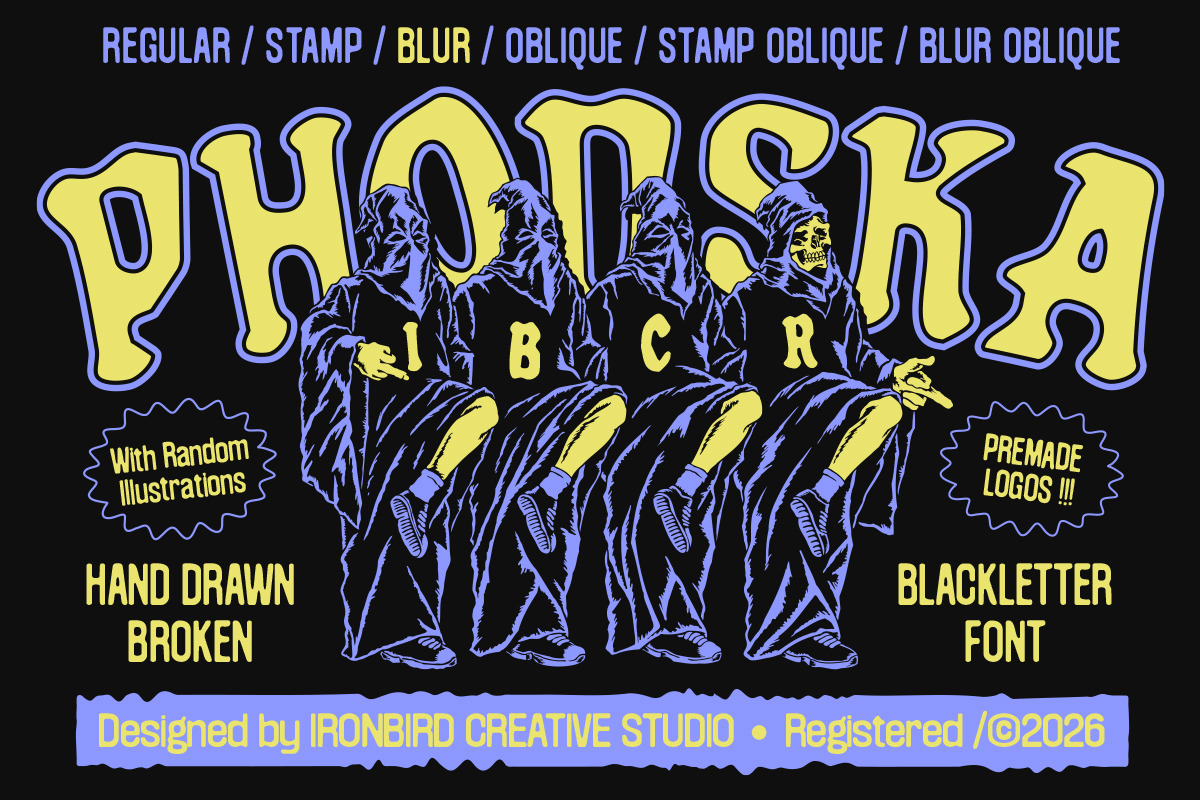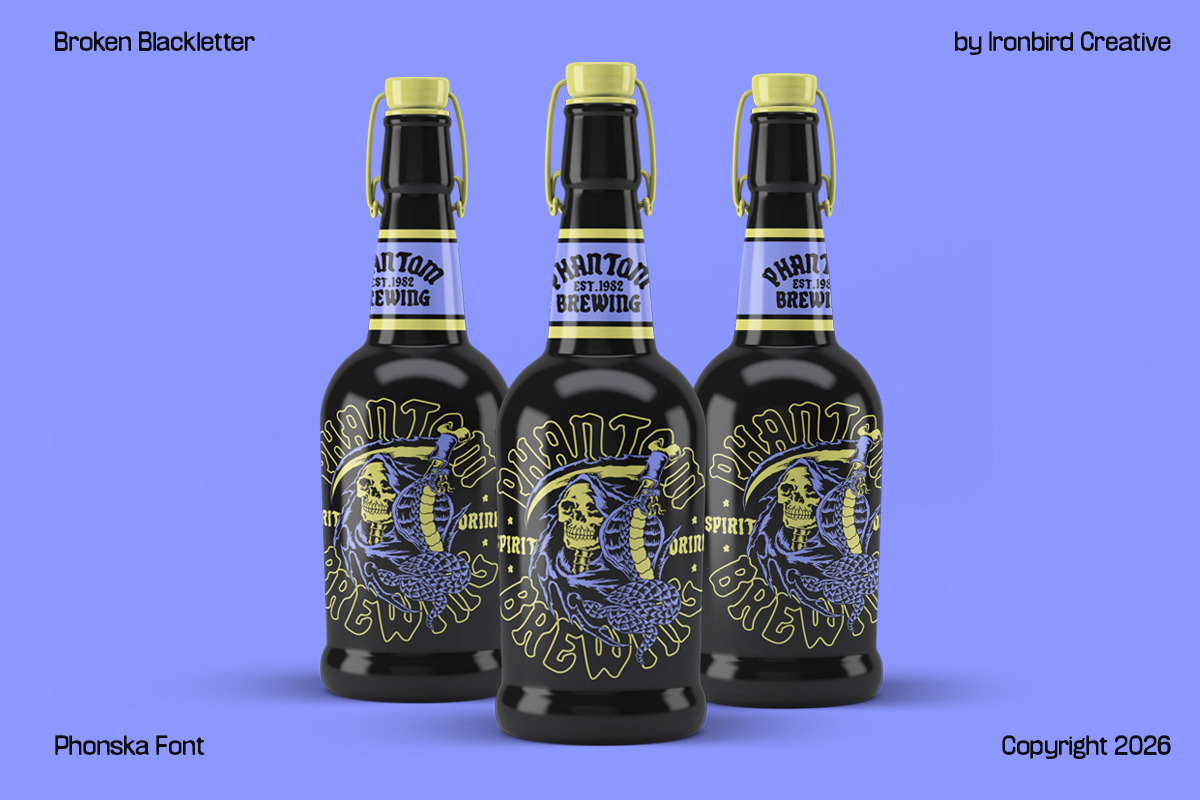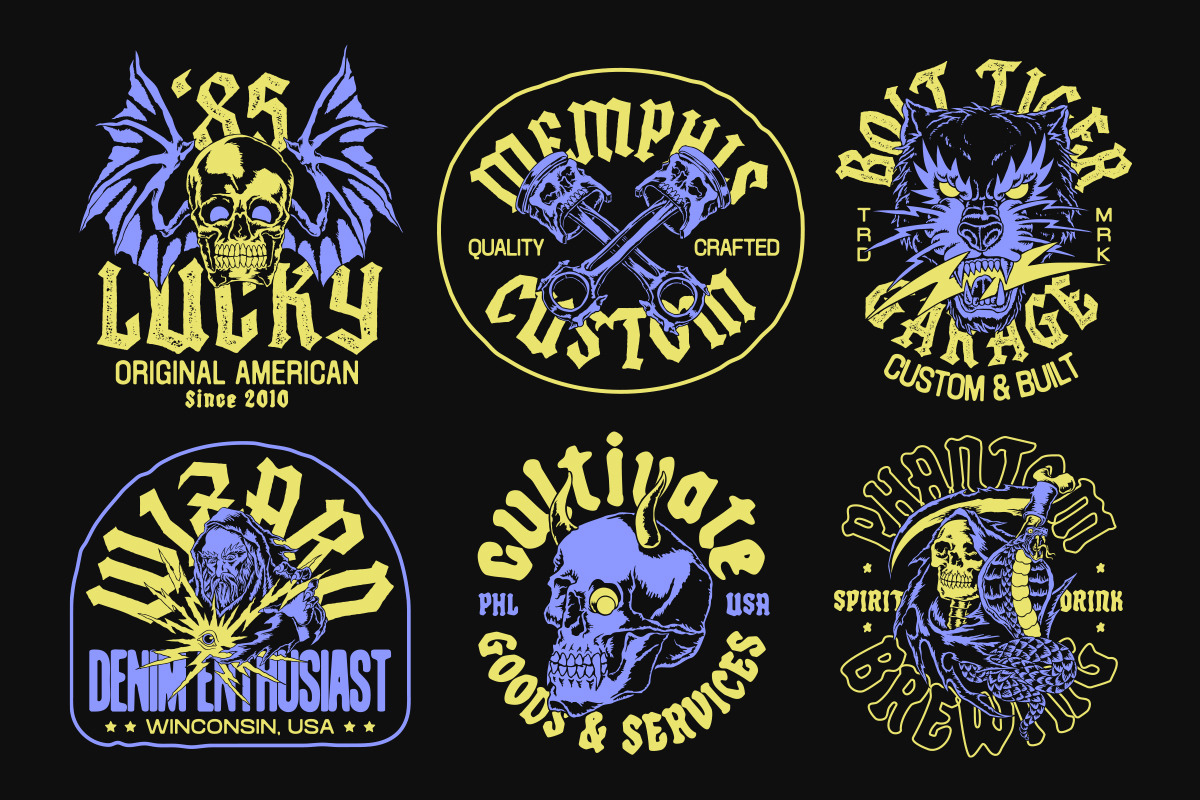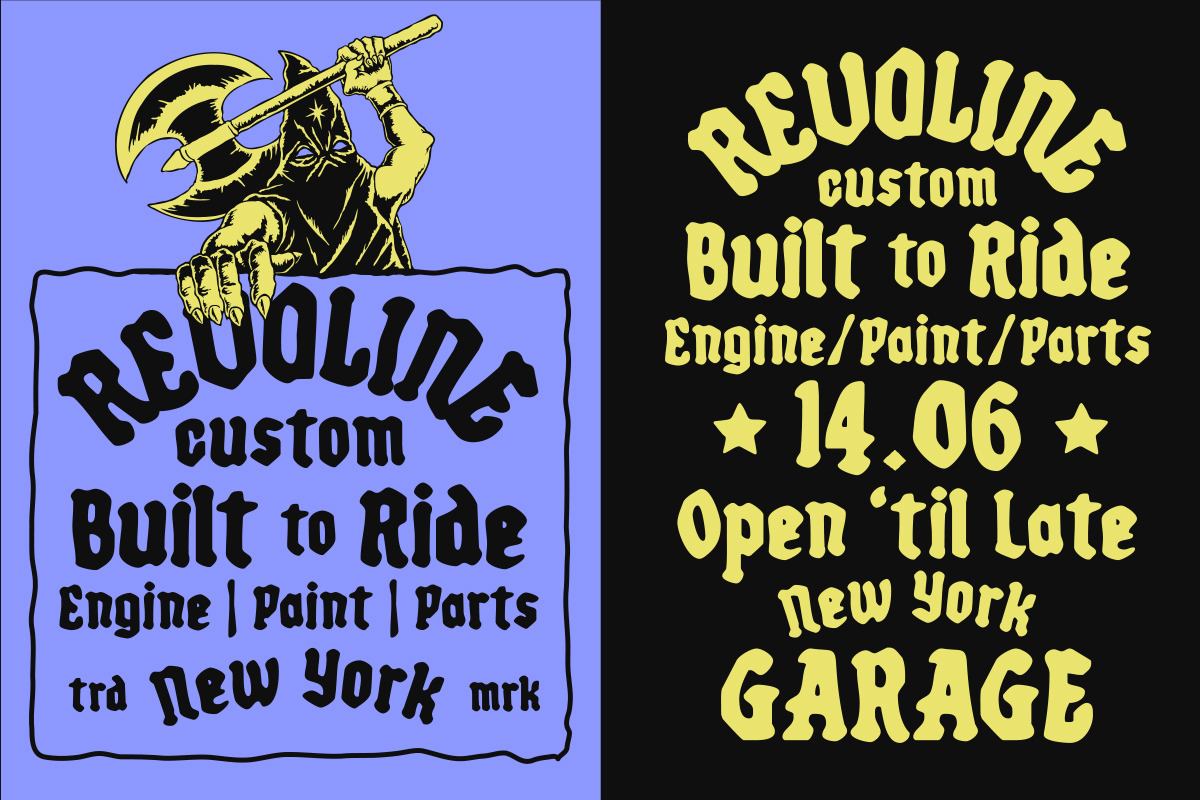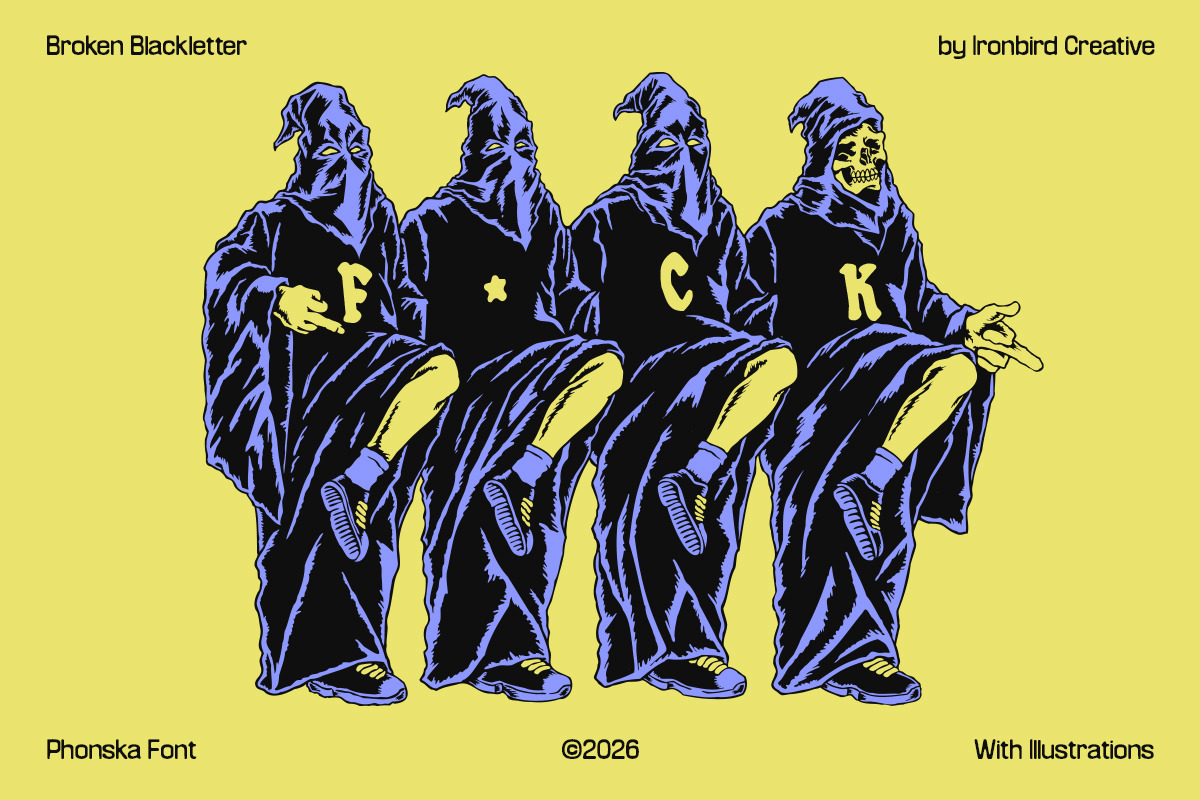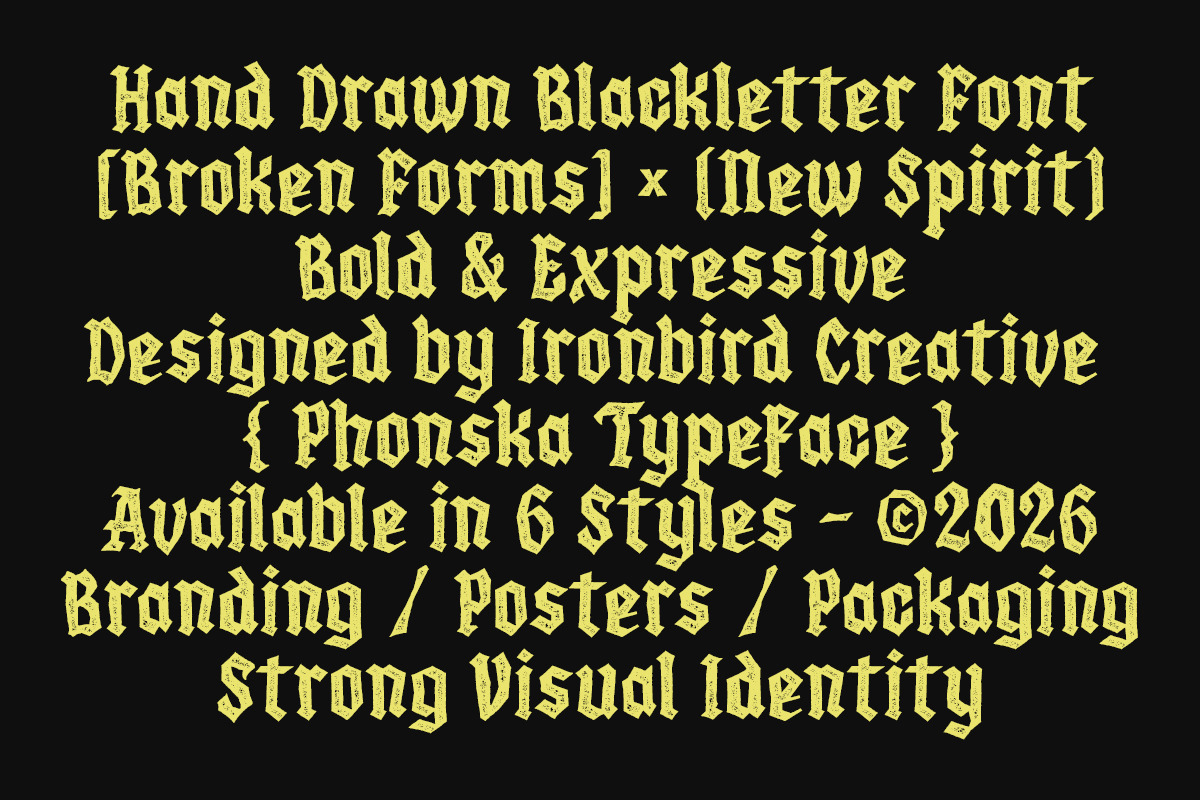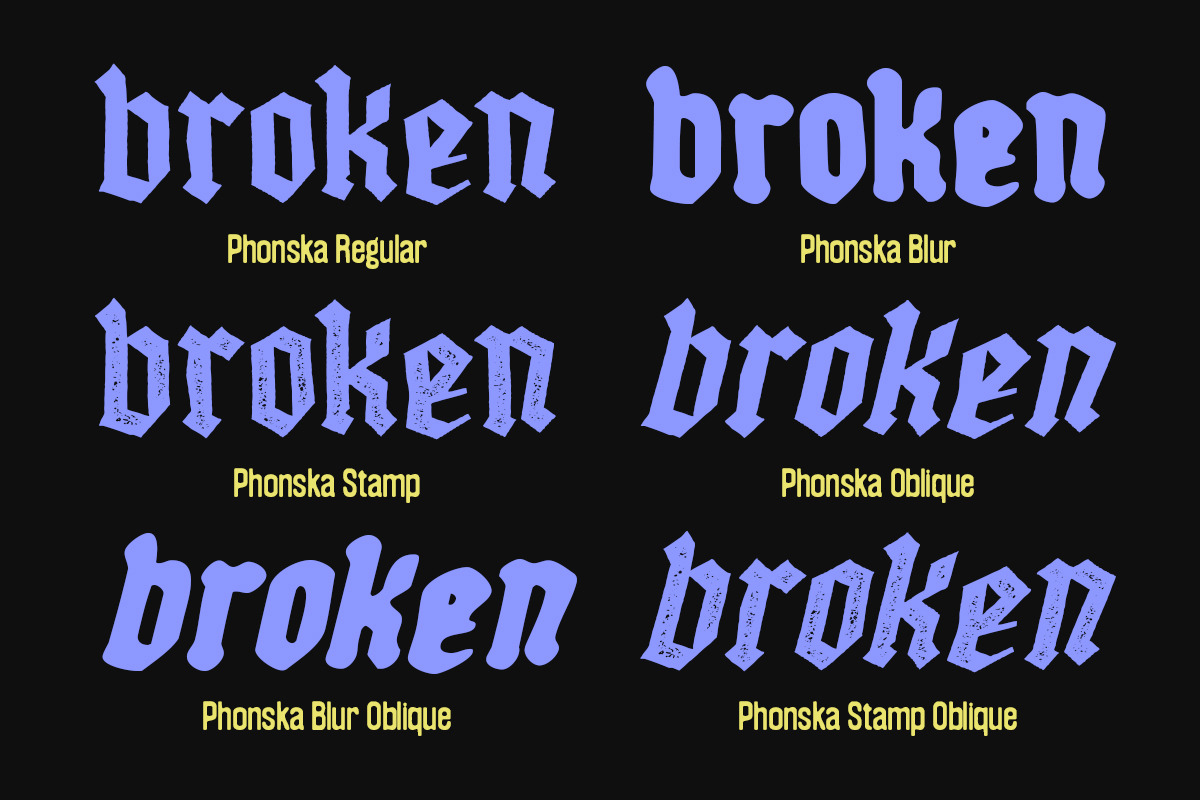
Phonska Font Pack & Extras!
Phonska is a bold hand-drawn blackletter font with a broken and expressive style, inspired by vintage American graphics, biker culture, garage signs, and underground designs.
Its rough and irregular letterforms give it a raw, handmade character that works great for logos, posters, apparel, badges, packaging, and branding. Comes in 6 styles: Regular, Stamp, Blur, Oblique, Stamp Oblique, and Blur Oblique.
The font also includes hand-drawn illustrations and premade logos, giving you ready-to-use elements to create bold and expressive designs.